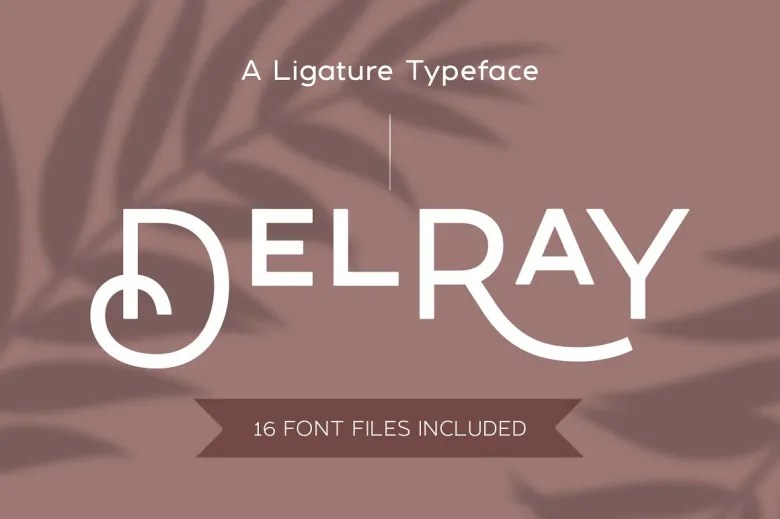
DelRay Font
DelRay is a versatile ligature-filled sans serif font that stands out with its seven weights, italics, and mutable font options, providing flexibility for any design project. Its unique ligatures and character variations, including elevated capitals and stylized underdots, allow for creative customization and elevate the visual appeal of your designs.
Whether you’re working on a logo, branding, web design, or print materials, DelRay offers a modern, stylish option that ensures readability while adding an artistic touch. The inclusion of multilingual characters makes it suitable for global use, expanding its utility across various projects and languages.
With its clean, contemporary design and unique features, DelRay is an excellent choice for projects that require a sleek, modern, and personalized touch.